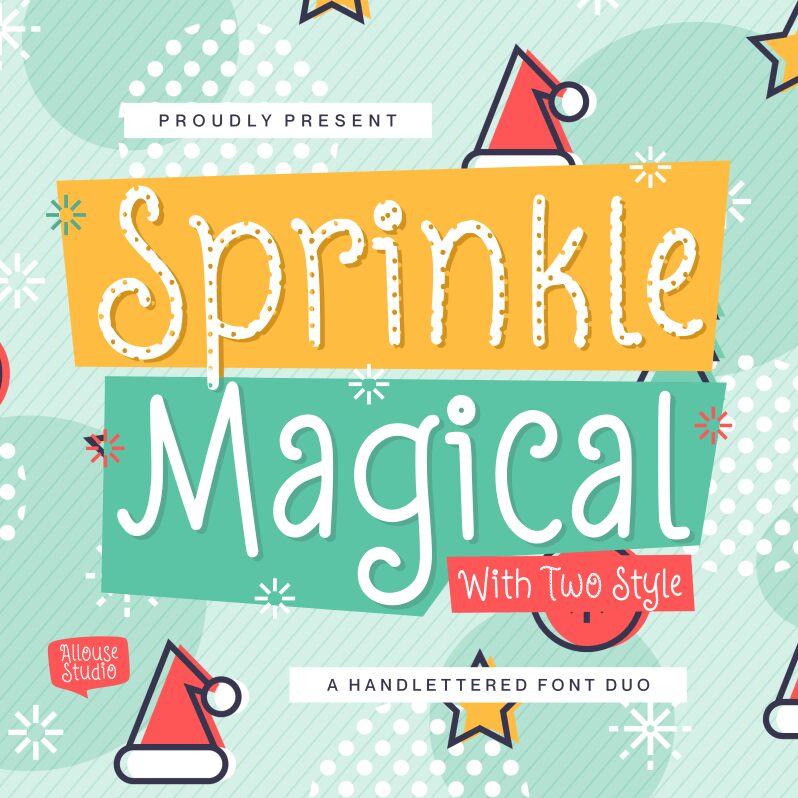
Sprinkle Magical Demo Alternate
Introducing Sprinkle Magical Alternate, a light decorative handwritten font designed by Qwrtype.Foundry. This beautiful font is perfect for adding a touch of whimsy to any project, from posters and invitations to logos and scrapbooking.